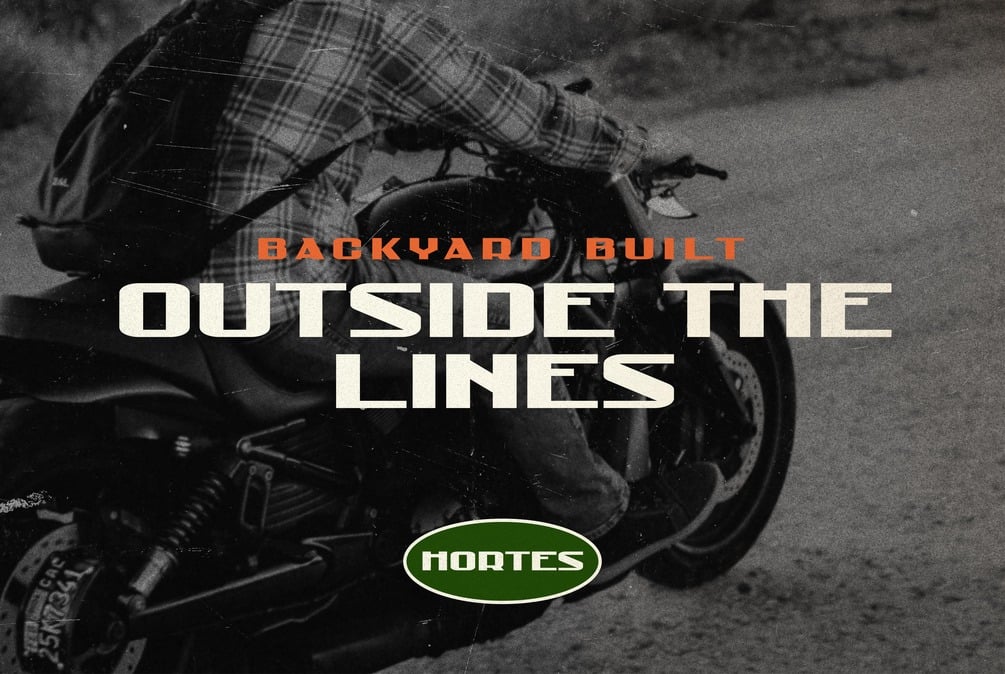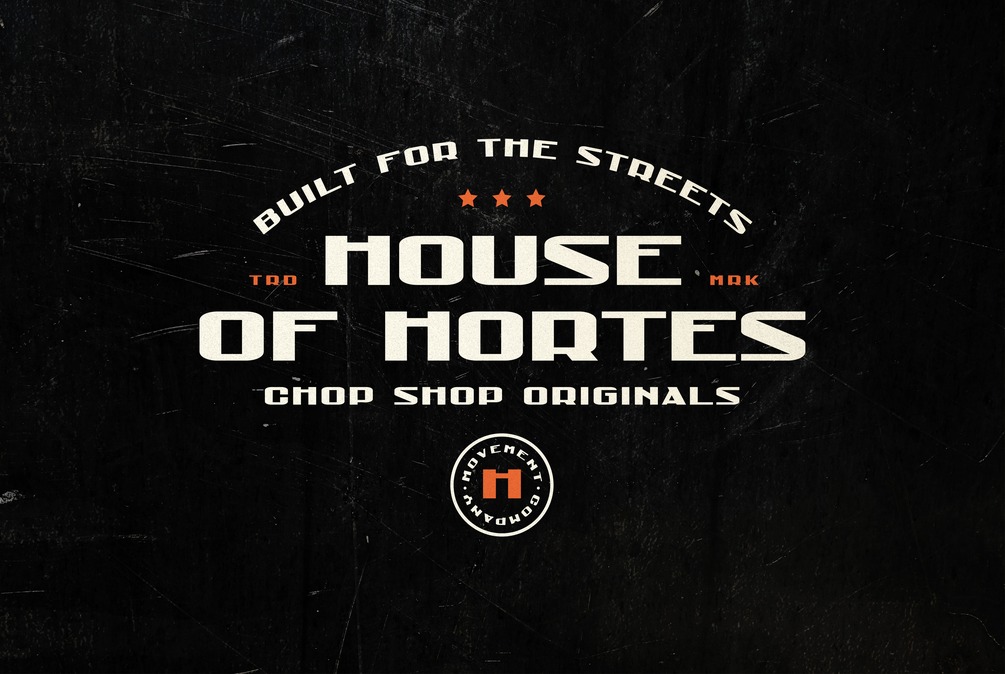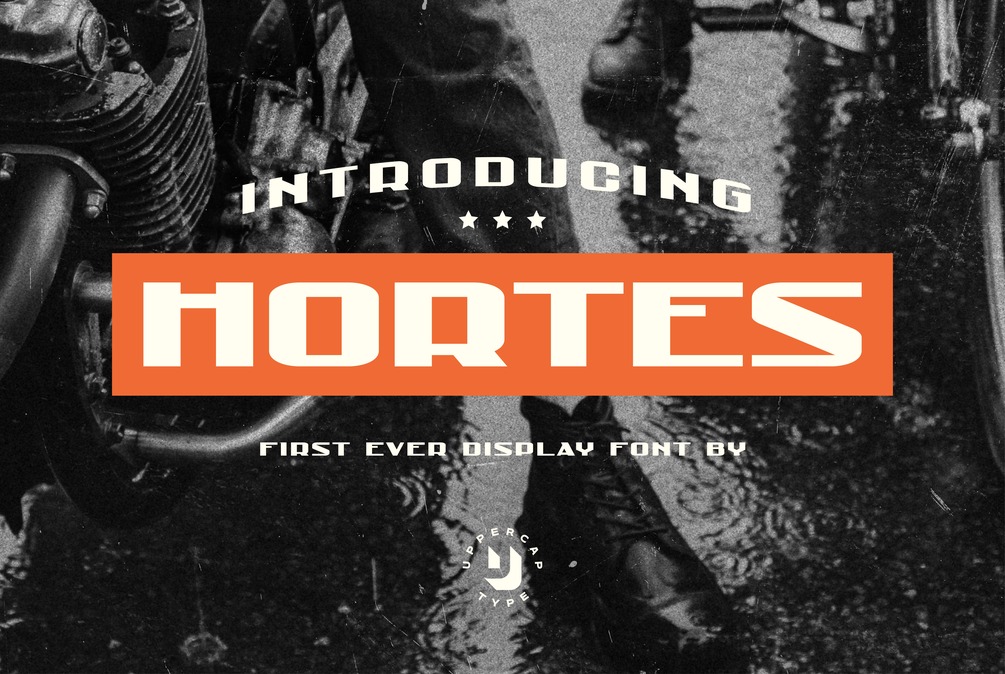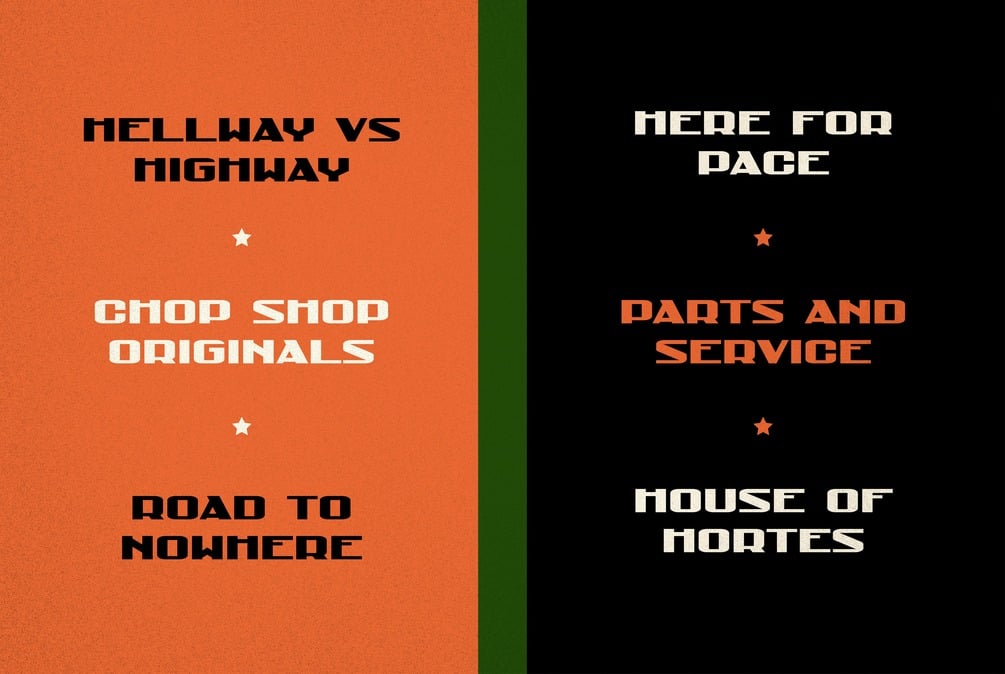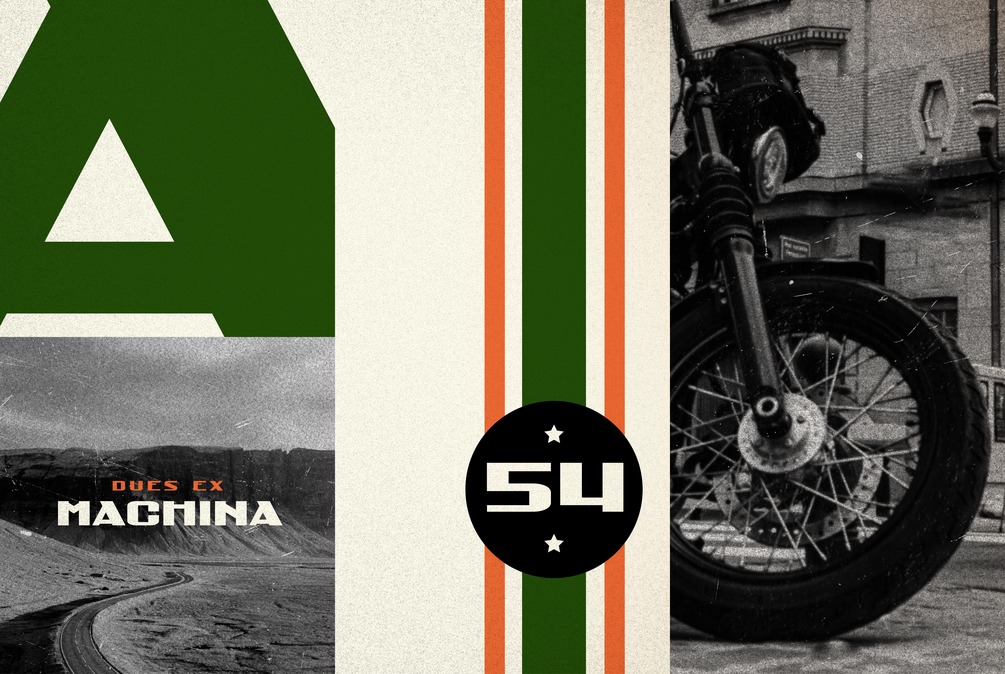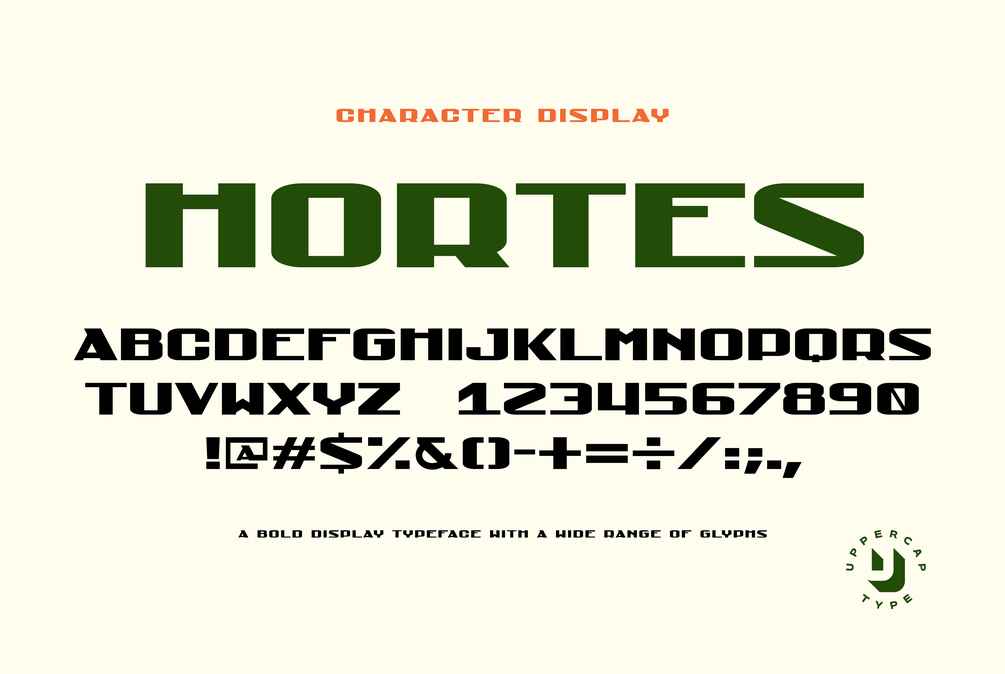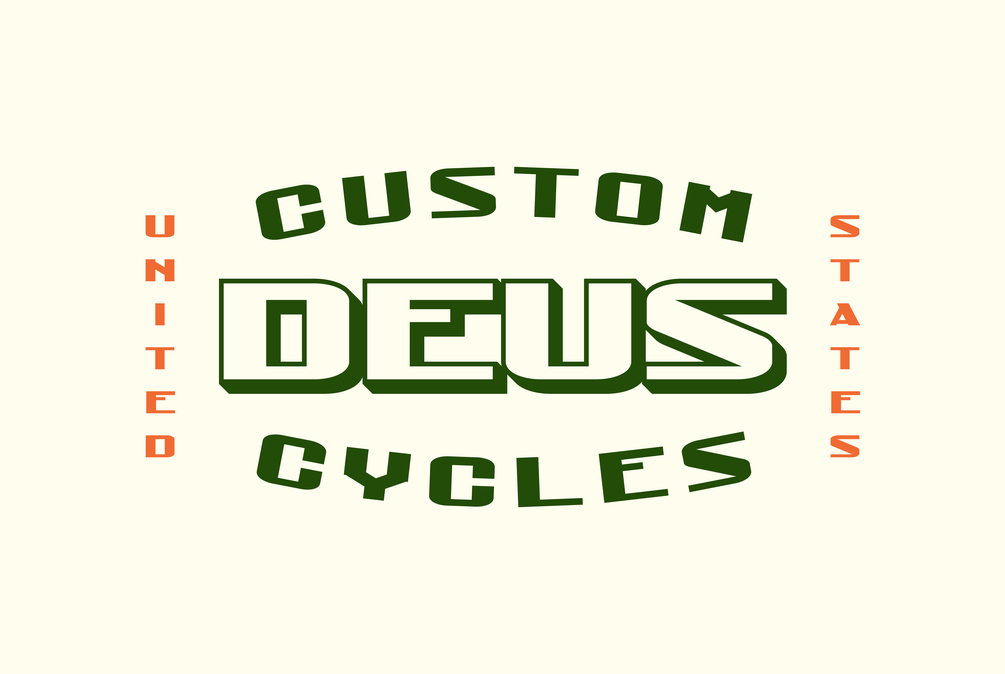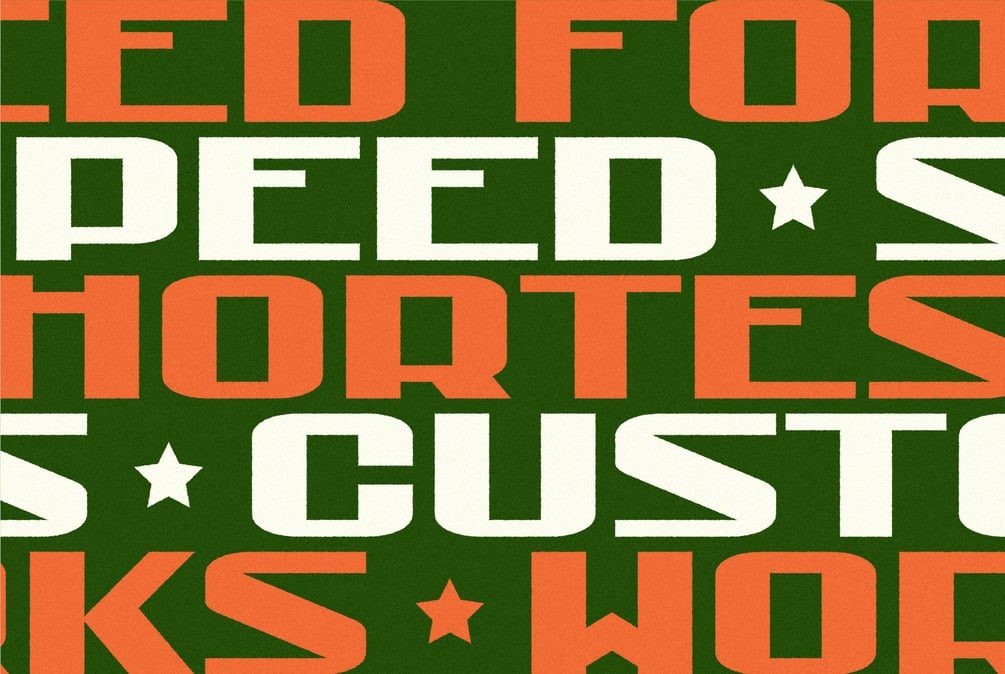
Hortes - Display Font
Introducing Uppercap Types first display font, Hortes! A high contrast, all caps Sans Serif that is inspired by heritage motorcycle culture. Hortes is perfect for any posters, apparel designs, type -badges, logos and more.